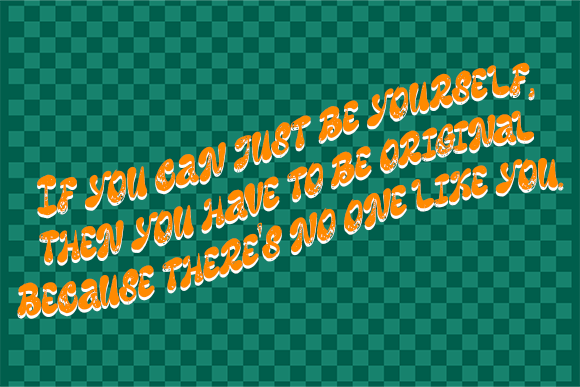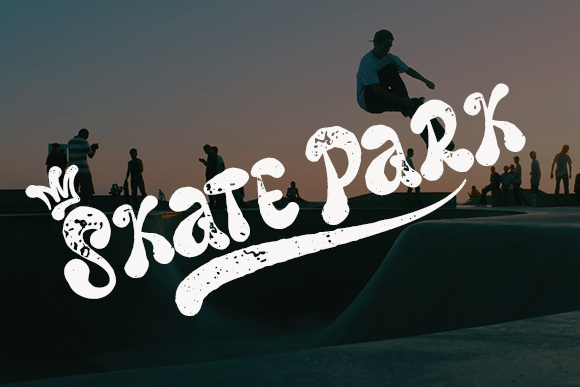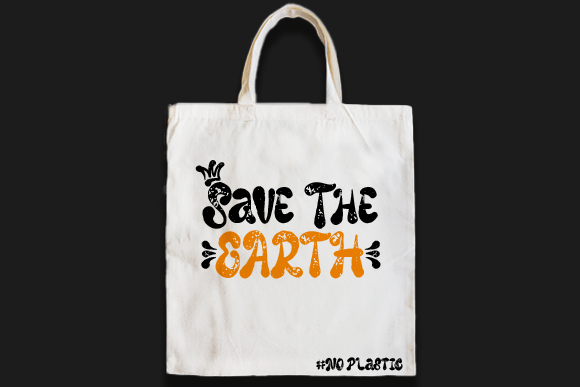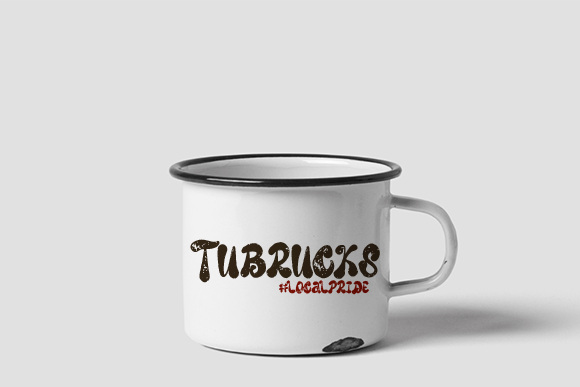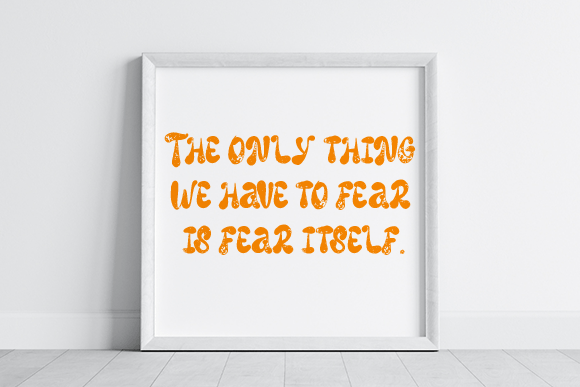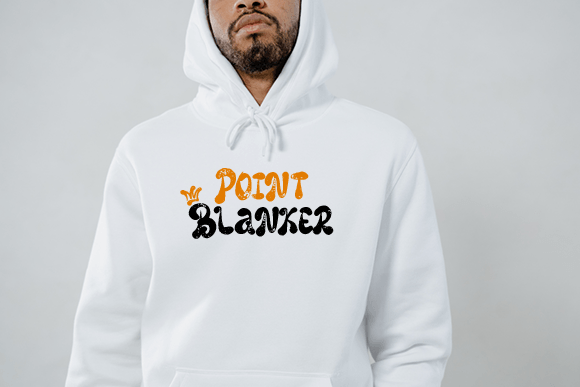
Introducing Grope Frost: The Quintessential Natural Retro Brush Font
In the realm of design, fonts play a pivotal role in conveying emotions, setting tones, and capturing the essence of a message. For those seeking to infuse their creative projects with a touch of nostalgia and retro charm, Grope Frost emerges as a game-changer. This natural retro brush font is meticulously crafted to breathe life into your designs, making it an indispensable tool for designers and crafters alike.
The Essence of Grope Frost
Grope Frost is more than just a display font; it’s an experience. It subtly elevates the visual appeal of your designs, imbuing them with a nostalgic vibe that’s hard to resist. The font’s natural, brush-stroked texture gives it an organic feel, reminiscent of handcrafted artworks. This unique blend of retro aesthetics and modern usability makes Grope Frost a versatile choice for a wide array of creative projects.
Perfect for Heartfelt Creations
Whether you’re crafting heartfelt quotes, designing delightful greeting cards, or working on distinctive branding and vibrant promotions, Grope Frost is your go-to font. Its rustic charm and fluid strokes bring a level of warmth and authenticity to your text, making it perfect for projects that require a personal touch. From DIY enthusiasts to professional designers, Grope Frost offers the creative edge needed to make your work stand out.
Applications of Grope Frost
The versatility of Grope Frost is one of its most compelling features. Here are some ideal applications for this unique font:
- Quotes and Sayings: Add a vintage flair to your inspirational quotes, making them more captivating and shareable.
- Greeting Cards: From birthday wishes to holiday greetings, Grope Frost can help you create cards that are both charming and memorable.
- Branding: Give your brand a retro makeover with Grope Frost, perfect for businesses looking to evoke a sense of nostalgia and timelessness.
- Promotions and Advertisements: Stand out in a crowded market with promotional materials that boast a unique, eye-catching aesthetic.
Why Choose Grope Frost?
In a world where digital designs often lack a personal touch, Grope Frost offers a refreshing alternative. Its natural, retro brush strokes provide a human element to your designs, making them more relatable and engaging. Here are a few reasons why Grope Frost should be your top choice:
- Unique Aesthetic: Grope Frost’s distinctive look sets it apart from more conventional fonts, ensuring your designs grab attention.
- Emotional Connection: The font’s nostalgic charm can evoke emotions, creating a deeper connection between your message and its audience.
- Versatility: Suitable for a wide range of projects, from digital graphics to print materials.